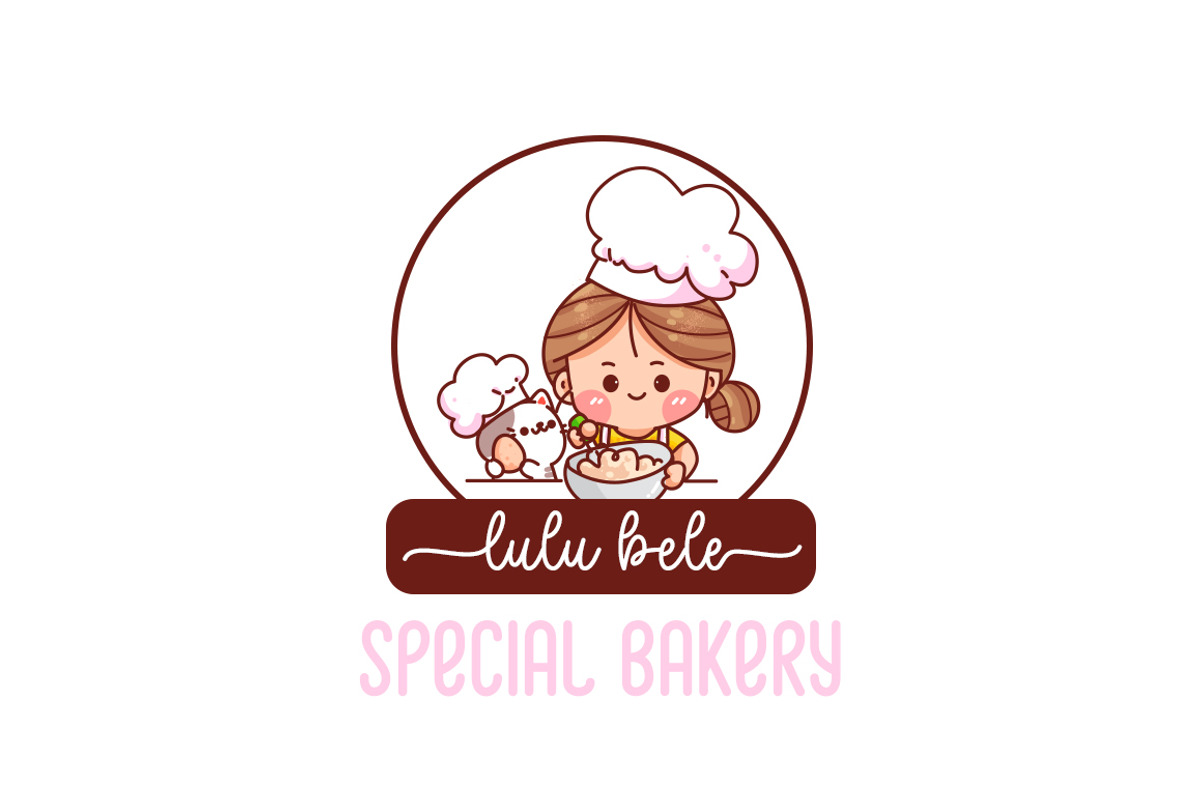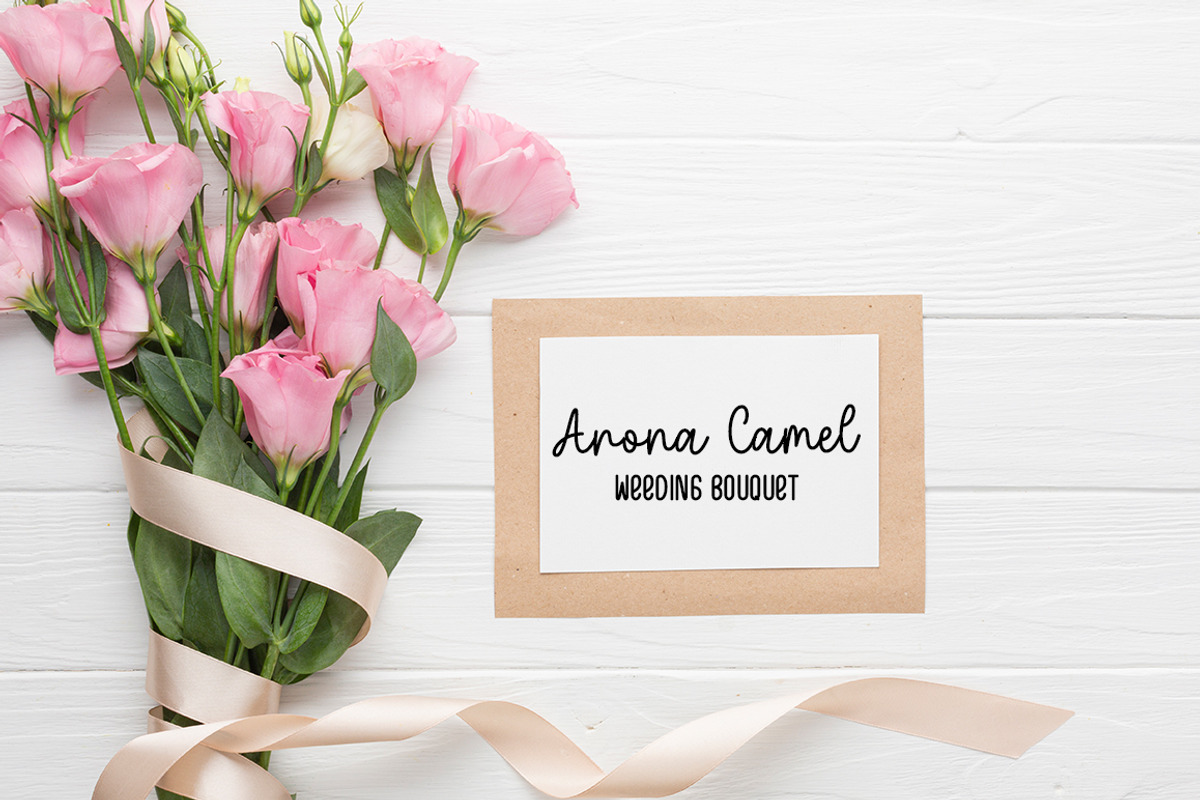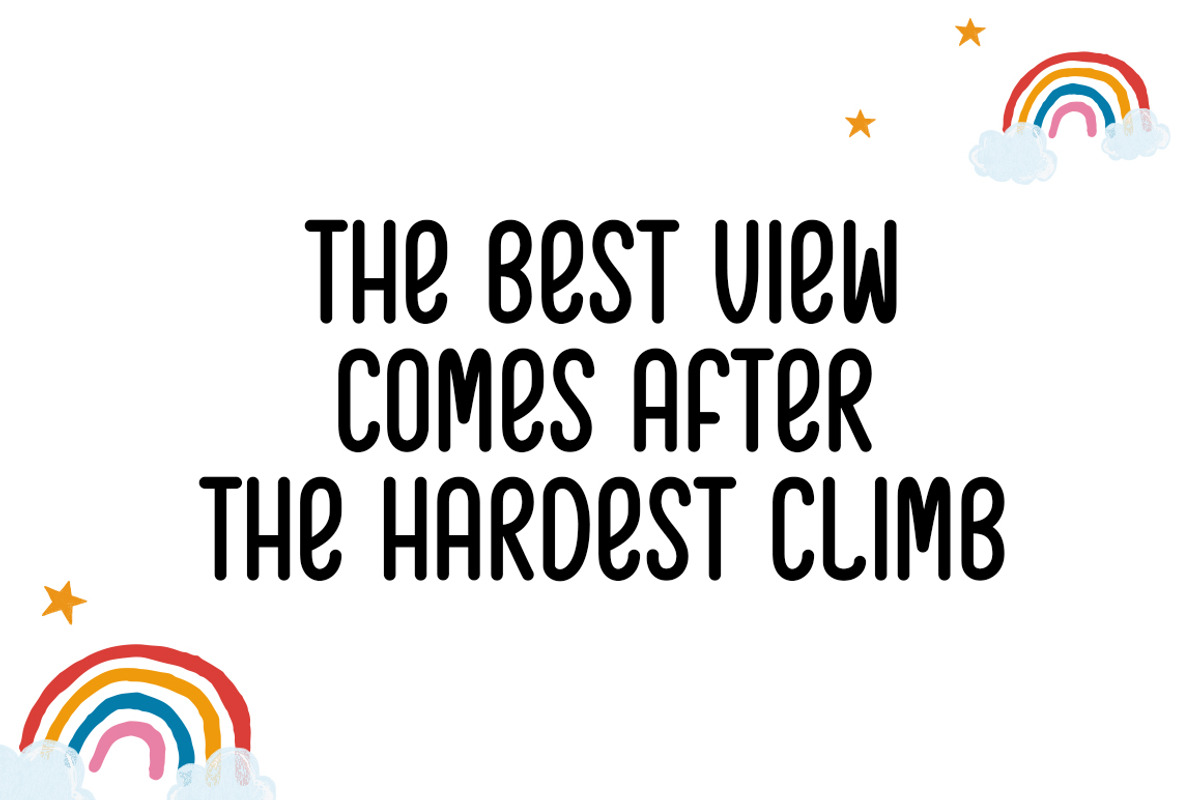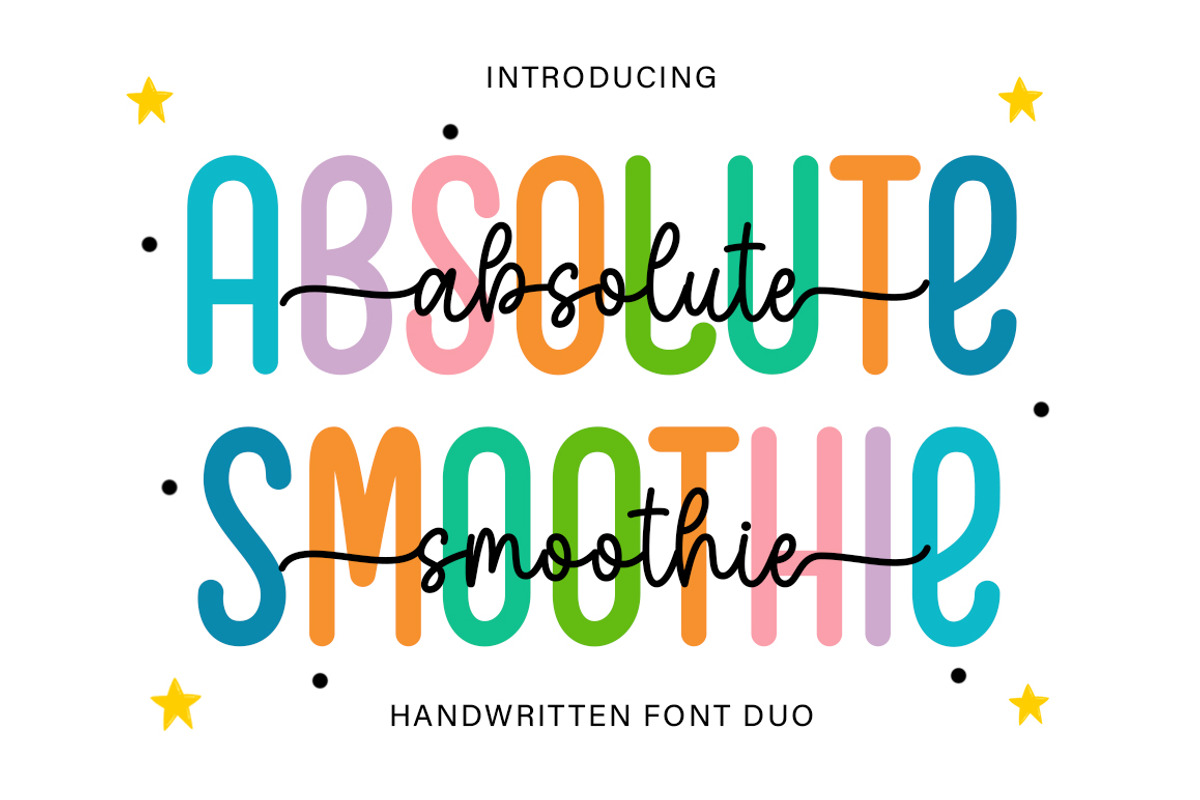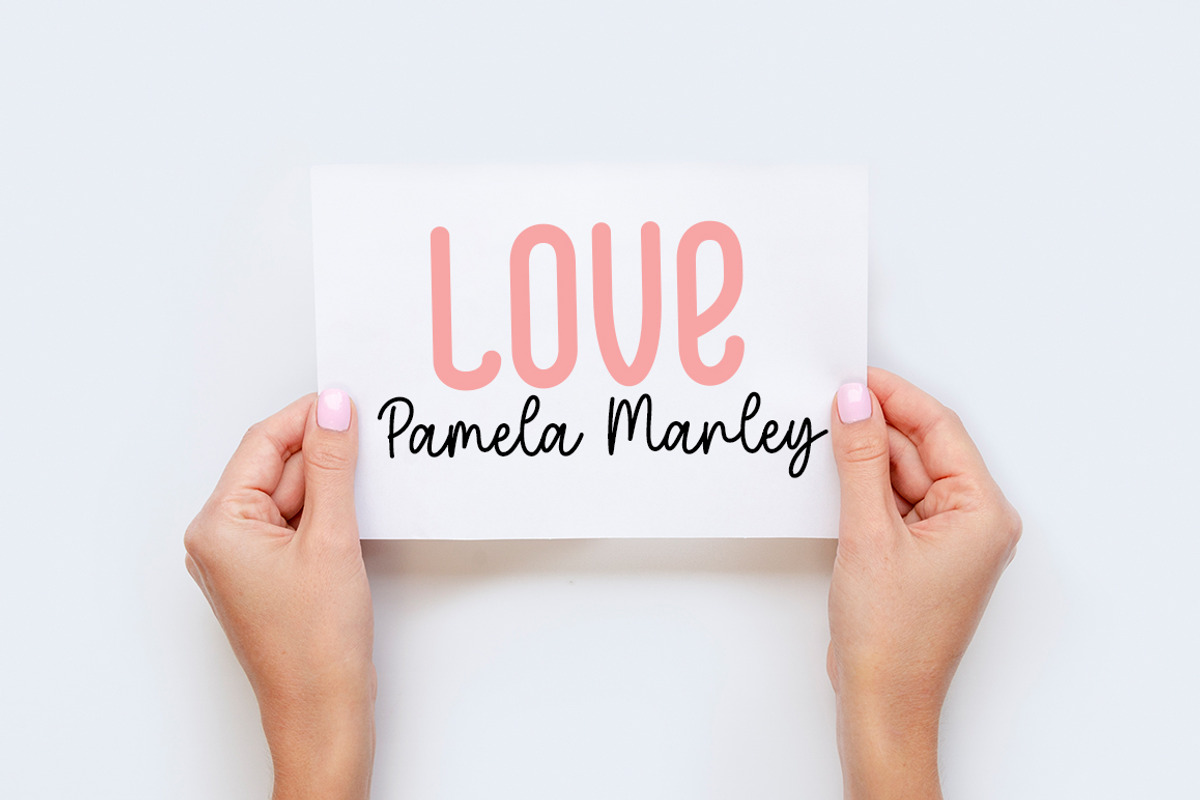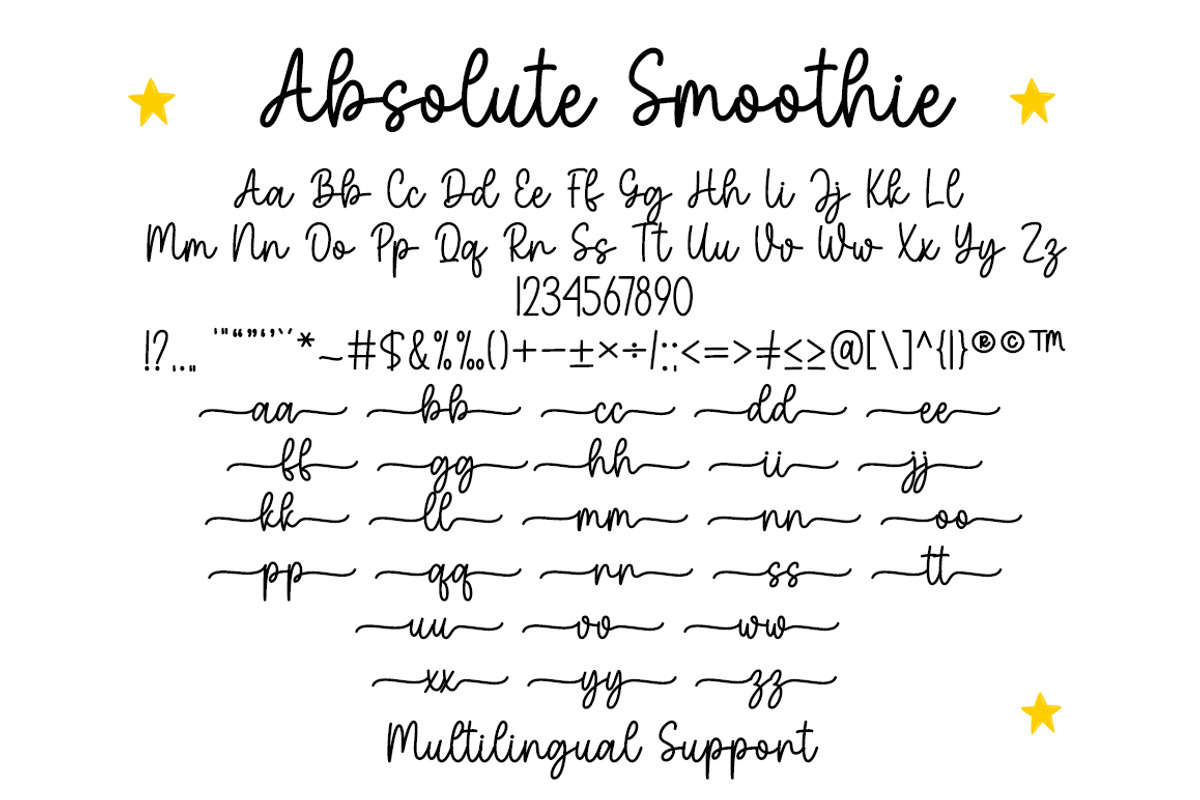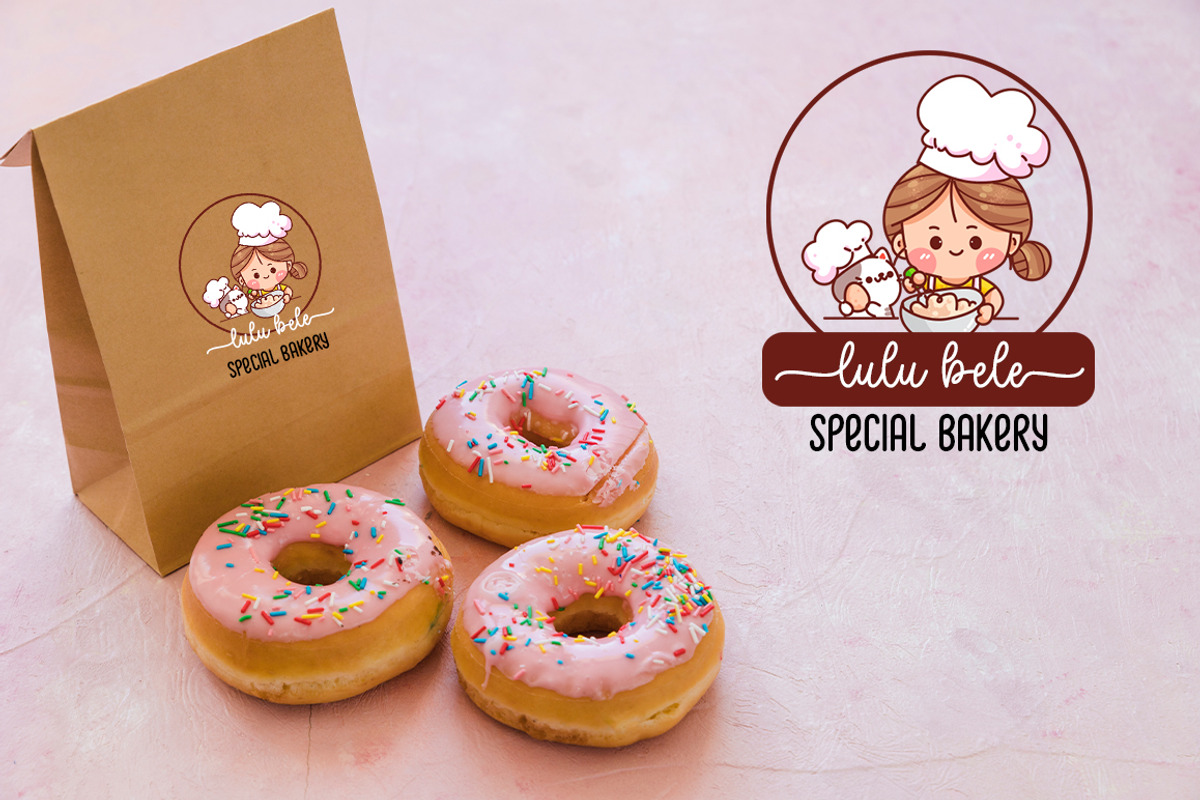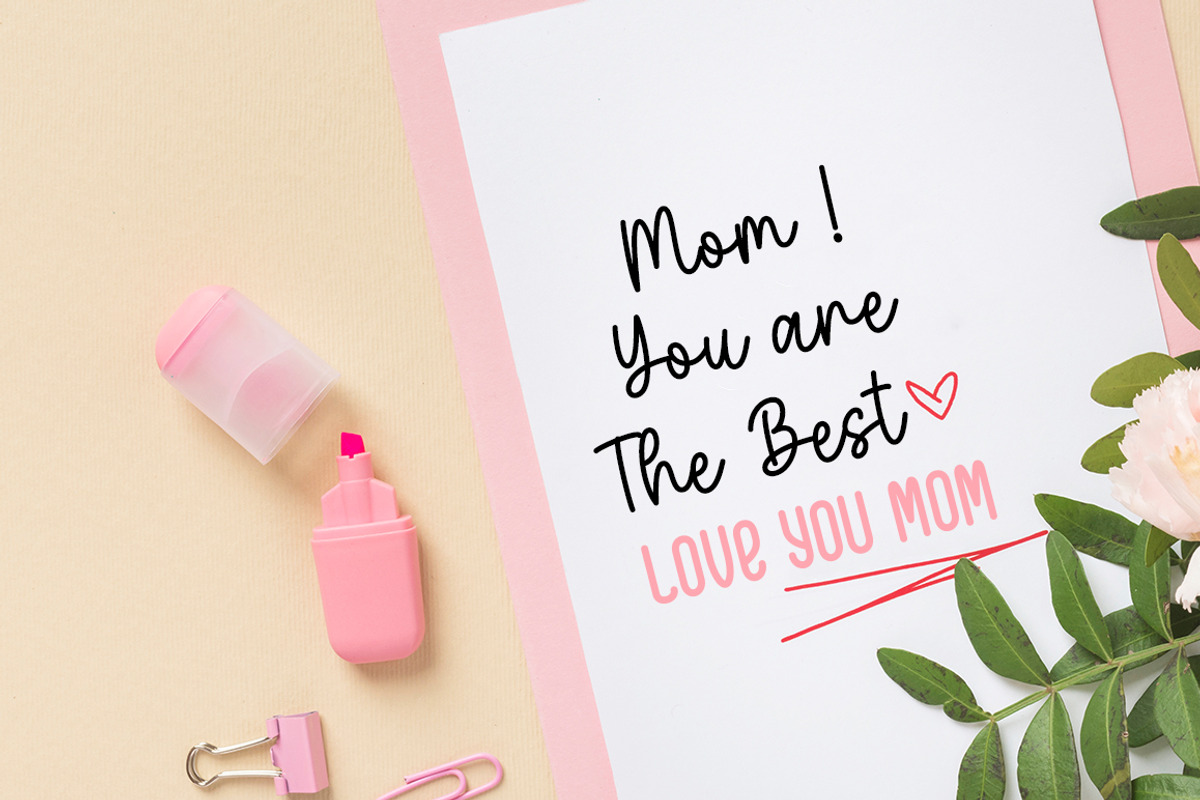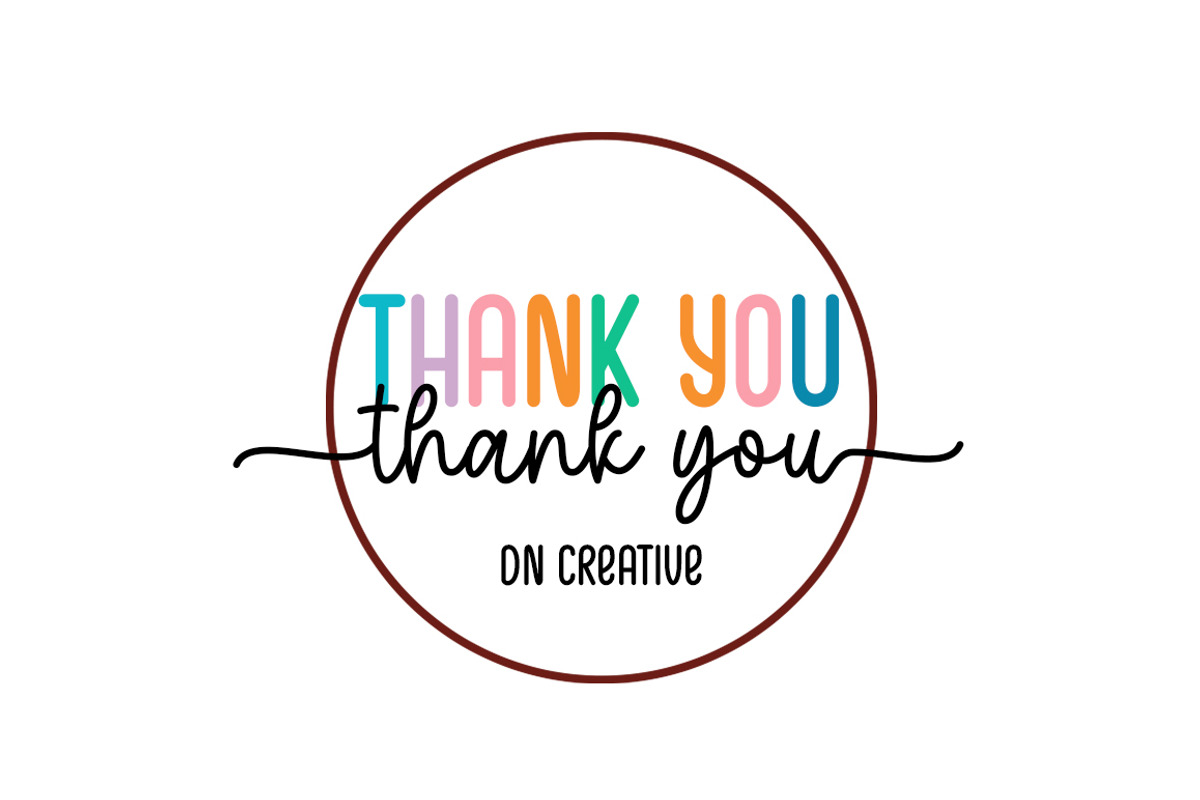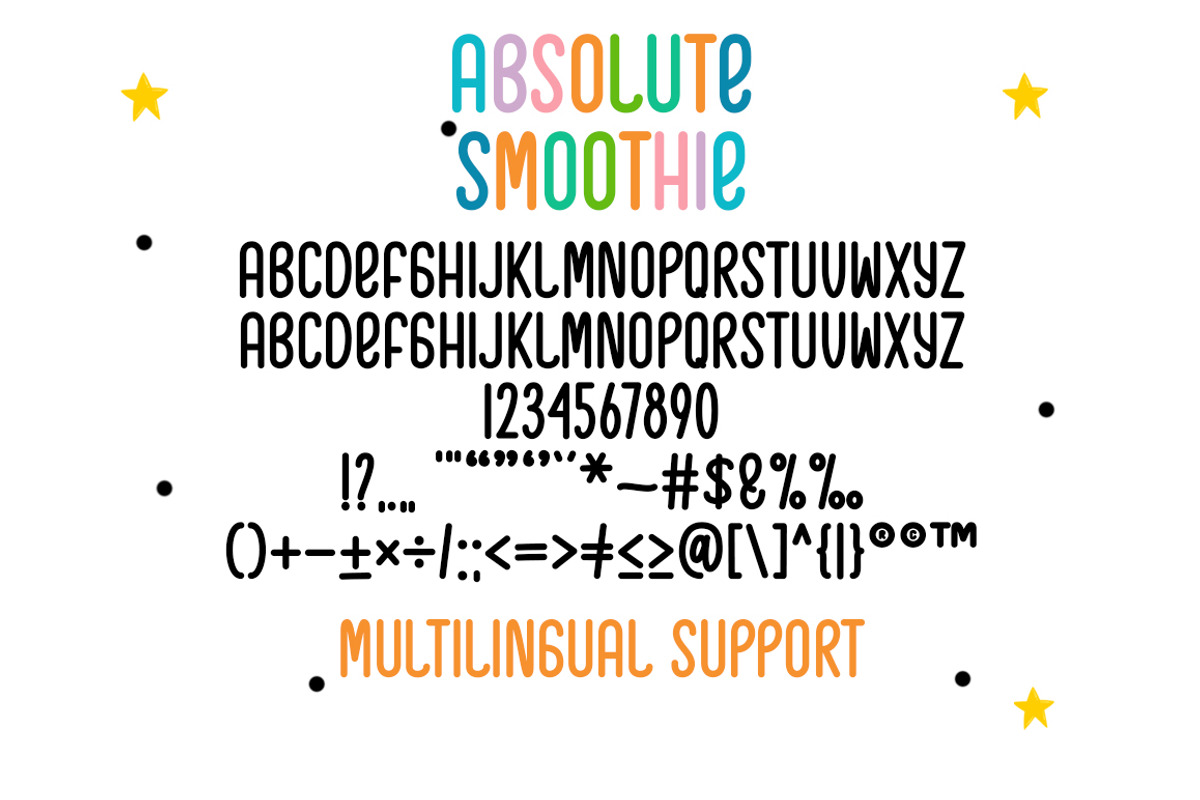
Absolute Smoothie Duo
Absolute Smoothie Duo is a stylish and delicate duo font (sans serif and script) suitable for a wide spectrum of applications. From greeting cards to headlines, this font will guarantee a romantic touch to each of your creations! Absolute Smoothie Duo is PUA encoded which means you can access all of the glyphs and ligatures with ease.